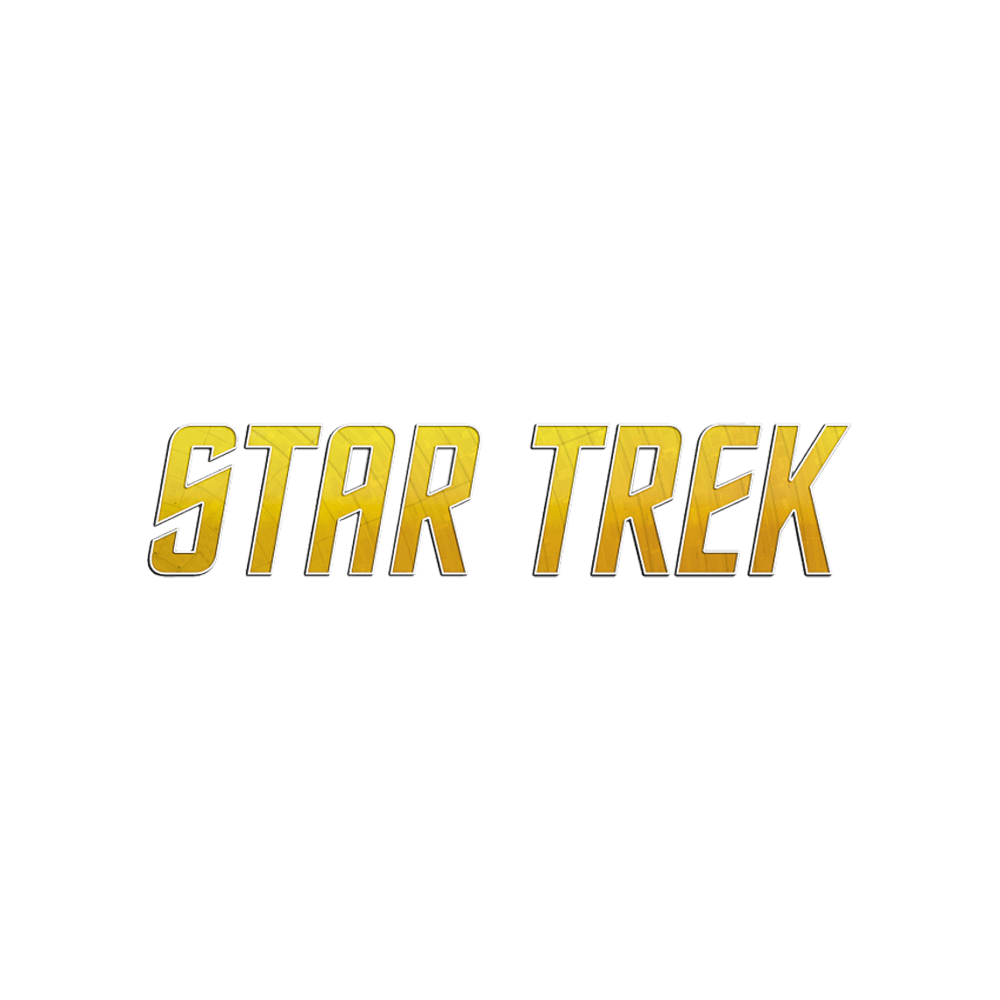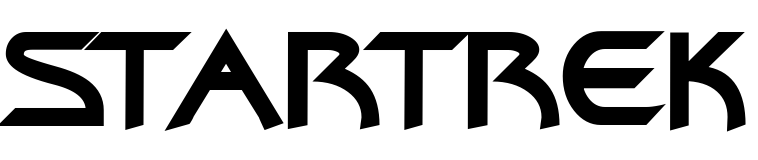
Star Trek Font
Fonts in UseStar Trek is a science fiction television series that premiered in 1966 and follows the adventures of the crew of the starship USS Enterprise as they explore the galaxy, encounter new civilizations, and confront strange phenomena.
The Original Series (1966-1969) - Final Frontier Old Style by Allen R. Walden
The Animated Series (1973-1974) - Final Frontier Old Style by Allen R. Walden
The Next Generation (1987-1994) - StarNext by an unknown designer
Deep Space Nine (1993-1999) - Bajoran by Kiwi Media
Voyager (1995-2001) - Final Frontier by Allen R. Walden
Enterprise (2001-2005) - Enterprise by an unknown designer